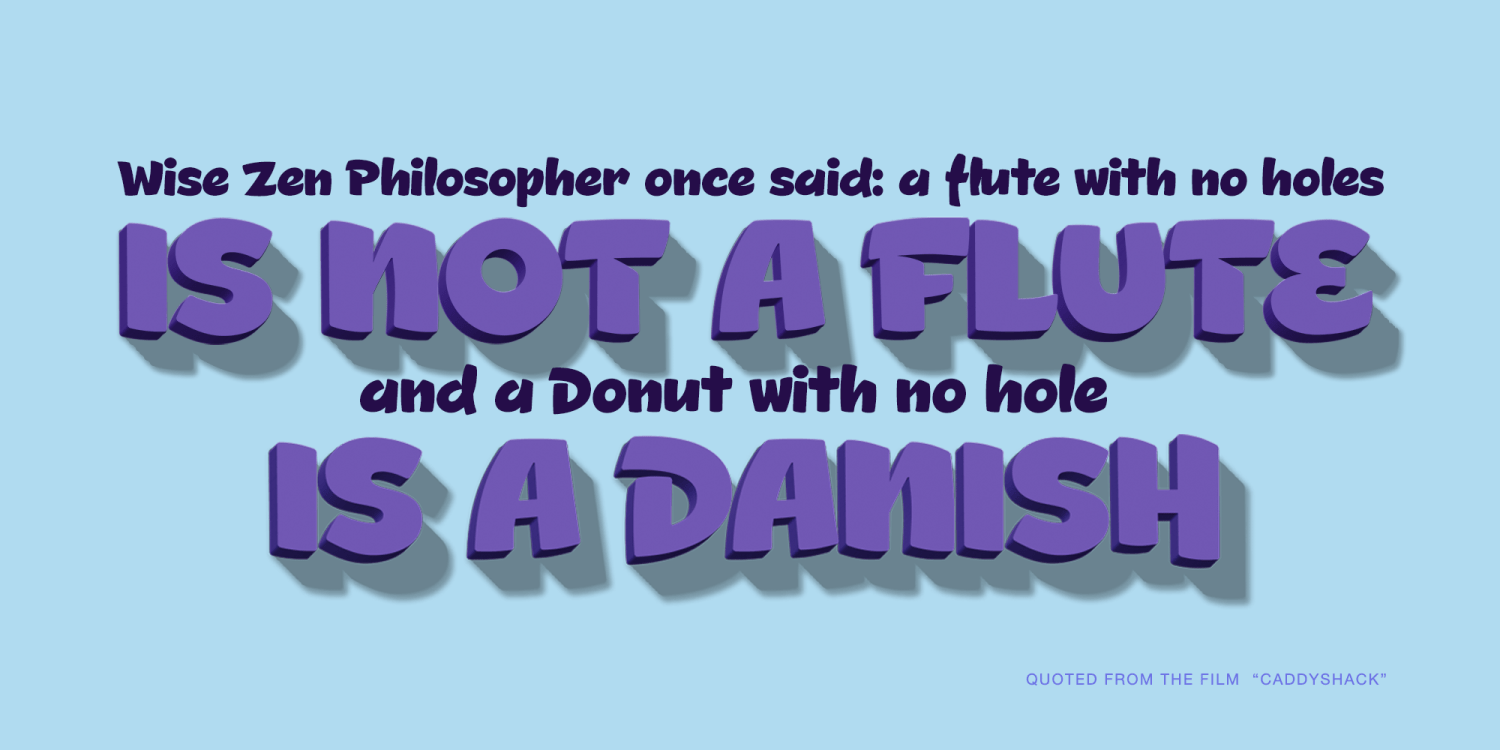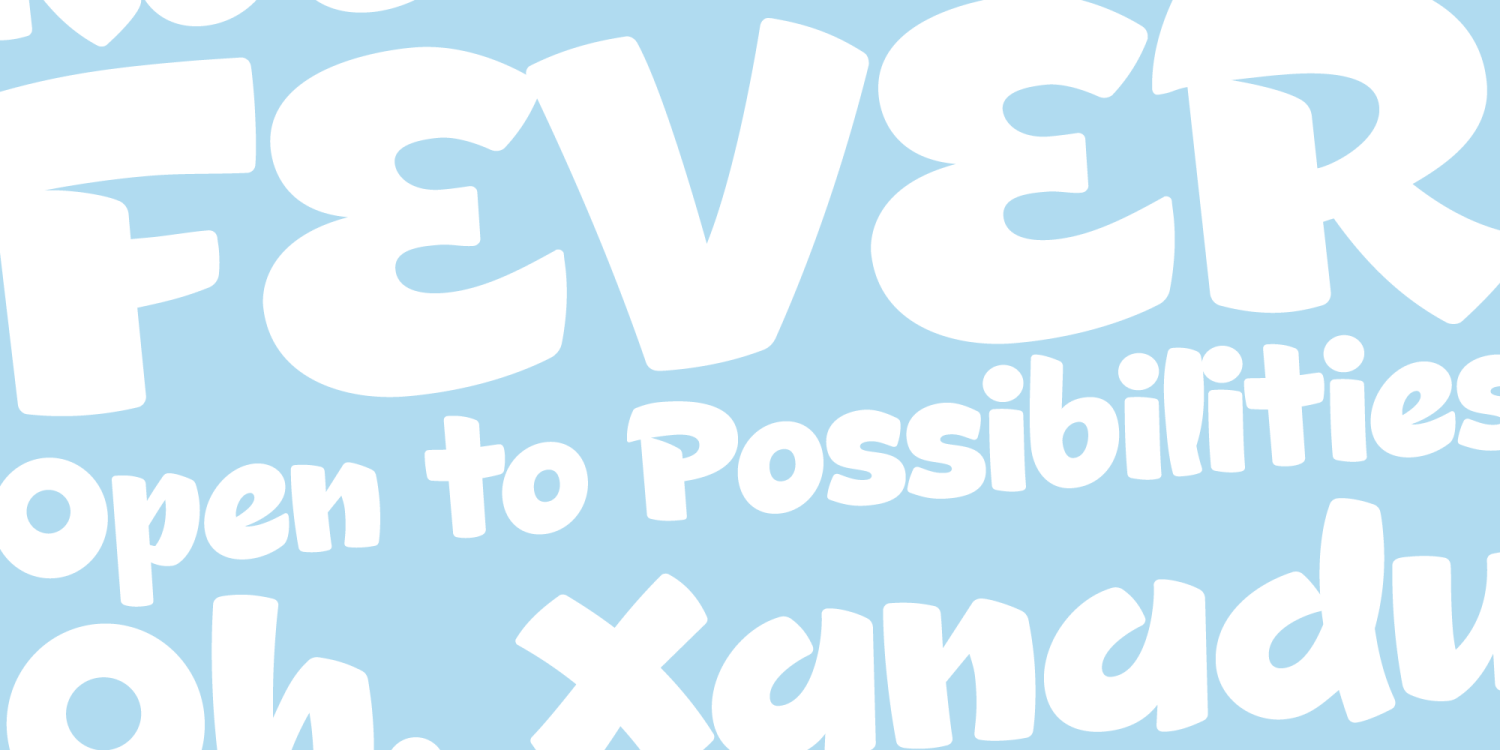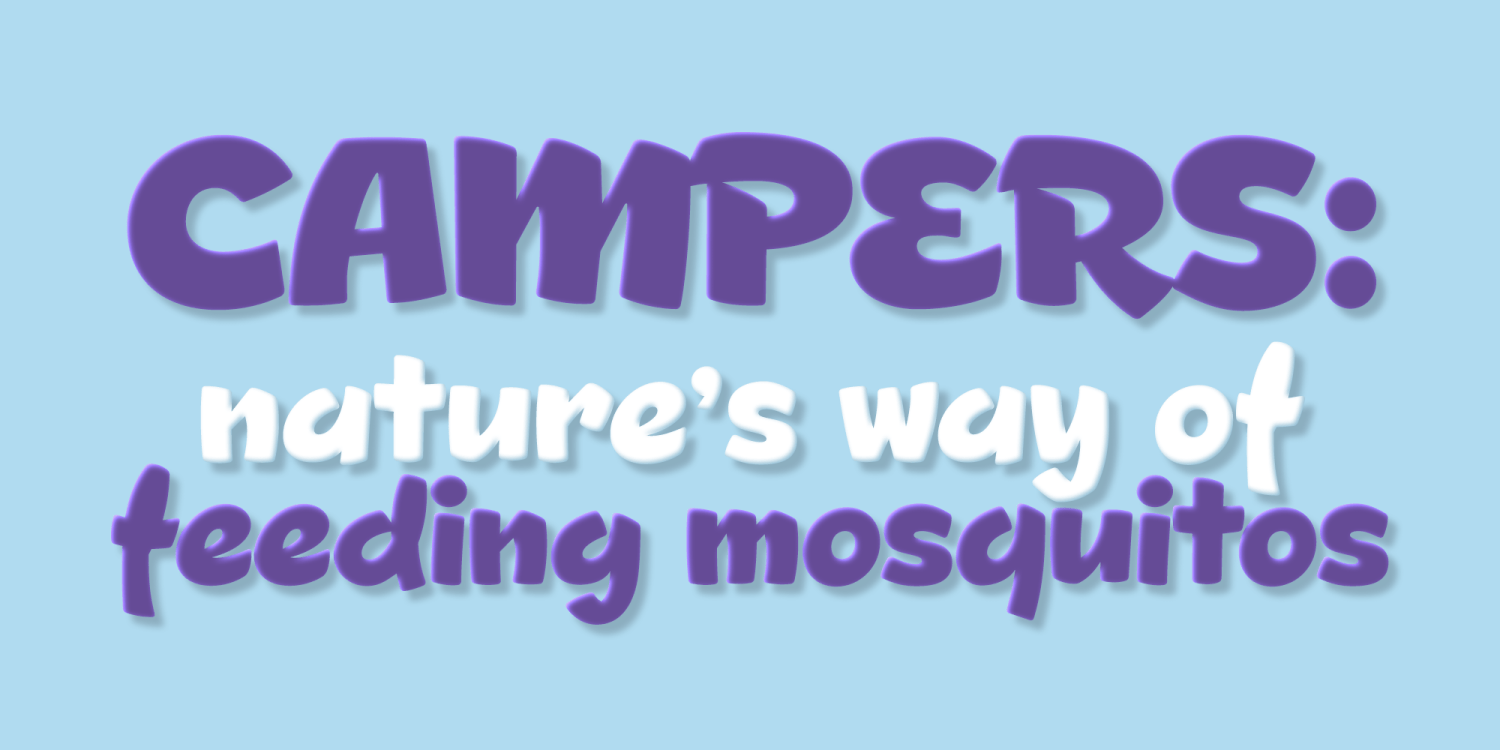
Lil Rhino PB Font Family - Poster #1
Lil Rhino PB Font Family - Poster #2
Lil Rhino PB Font Family - Poster #3
Lil Rhino PB Font Family - Poster #4
About Lil Rhino PB
Lil Rhino is the more reserved but still slightly offbeat sister to the quirky comic font Fat Rhino typeface. You can see the resemblance, they work well together, but they also each hold their own.
The Lil Rhino PB font family includes 379 glyphs.
Lil Rhino PB by Pink Broccoli